The new Jass card game
Creative director Jens Riedweg modernises the popular Swiss card game, Jass, using new illustrations, perfect printing, and the Abril family.
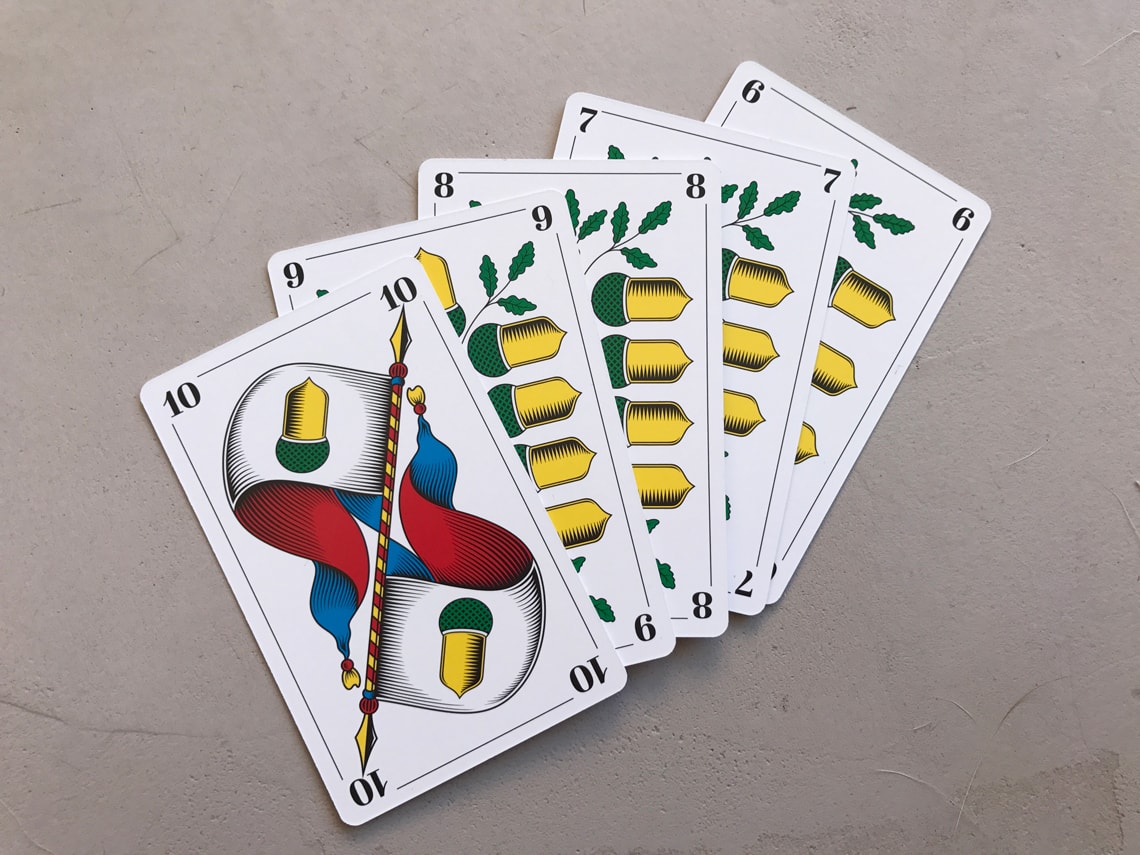
Jass is a card game popular throughout Germany, Switzerland, some areas of Austria, France, and Italy. Jass is a national pastime in Switzerland, so much so that it has become the popular name for any trick-taking card game. In 2014 the Swissmint, the official mint of the Swiss Confederation, issued a small set of “Jass card game” commemorative coins as part of its annual national sport series.
Despite its popularity, for many years Swiss Jass cards have been based on wood engravings, lacking typographic consistency and using blurry illustrations. Creative director Jens Riedweg took the initiative to update the old design. In the end it became more than just a new version of the old cards; it was a complete overhaul that required an attentive eye to aesthetics and details, including technical issues related to paper, such as thickness, softness, pliability, and printing.
For Jens it was very clear that this was not just an update. “The design of Swiss Jass cards has always bothered me: 70-year-old unclear illustrations and inconsistent fonts in various sizes, reader-unfriendly and impure. What could be more appropriate than to take the redesign into my own hands? It wasn’t an artistic realisation. Instead, the outdated cards were to be upgraded to a modern level while retaining their traditional design. The hatching in the new design is vector-based. As a result, the colours are clearly differentiated and the cards generally appear rich in contrast. In addition, the cards can be scaled as desired without losing their sharpness and accuracy.”
For this new and improved version of Swiss Jass cards Jens choose our Abril font family, which shared characteristics with the old lettering, but added consistency and a modern feel. “As a typographic designer, I paid particular attention to the choice of typeface. In the end I decided on the font family Abril — a modern interpretation of a classicist Antiqua. The majuscules and minuscules as well as the serifs are straighter, the transitions more angular; the knit strength contrast between the stem and the crossbar is very strong. The font developers had the same high standards as I did when designing the cards — a love for detail which runs through the whole design.”
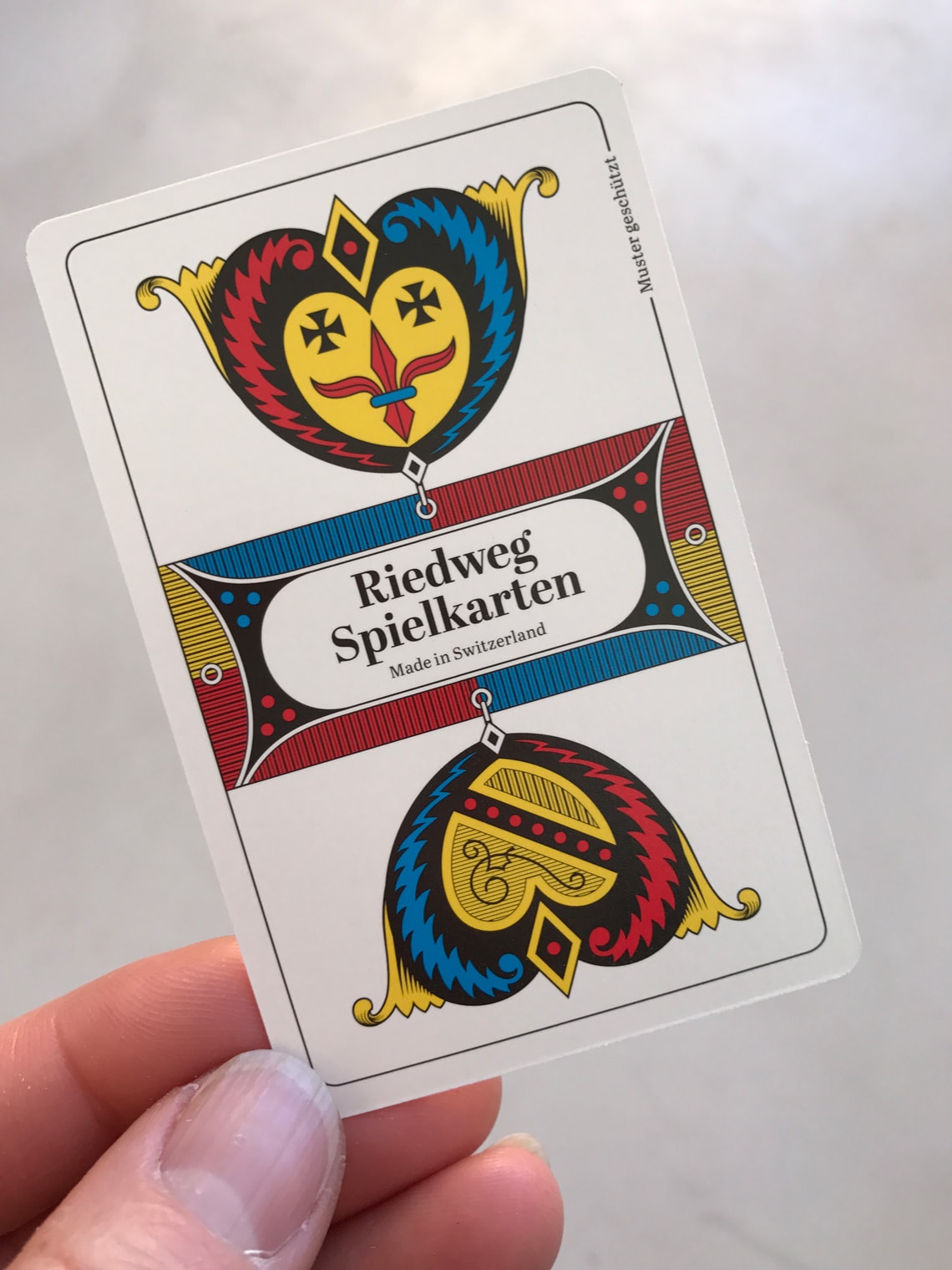
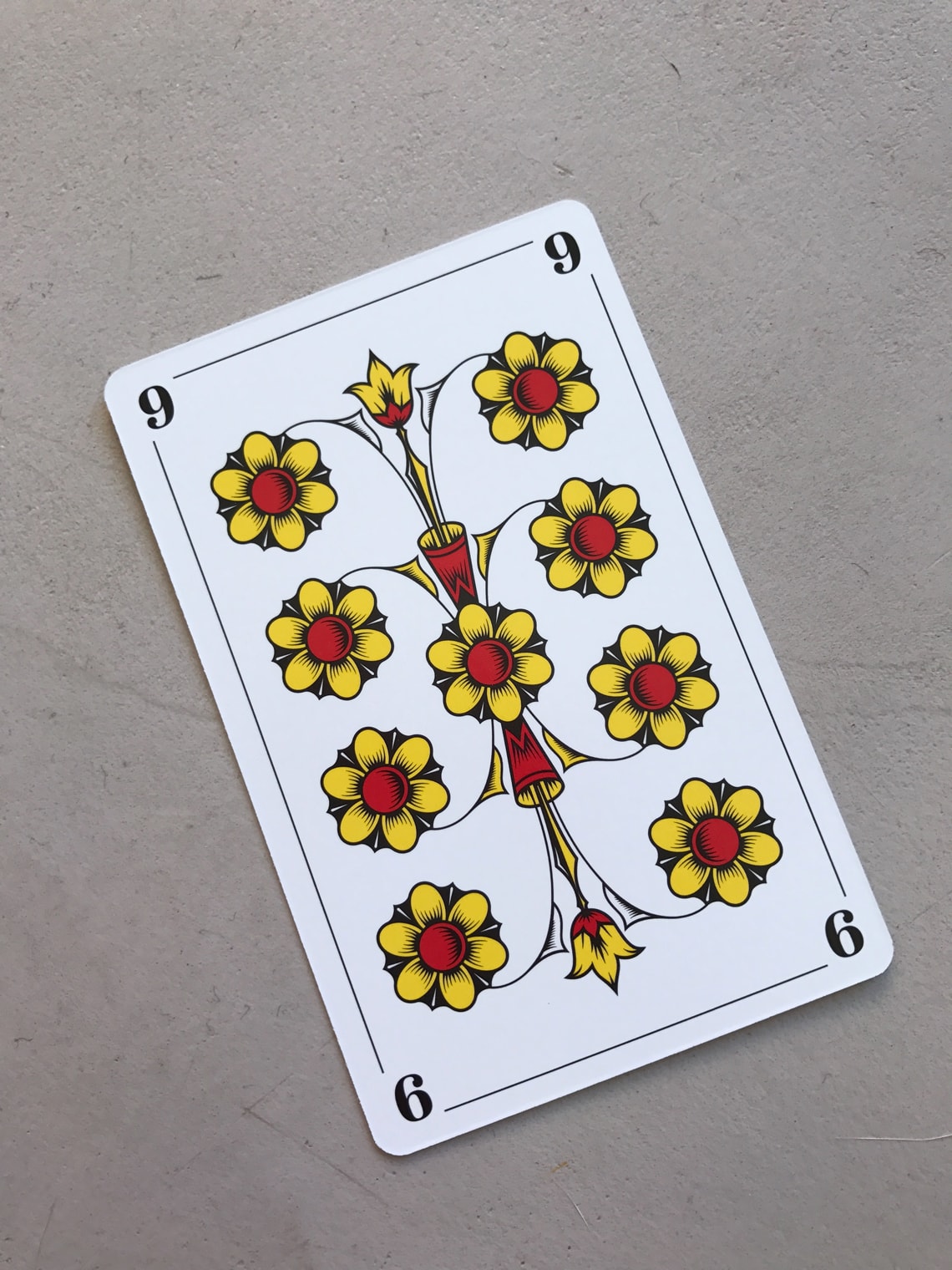
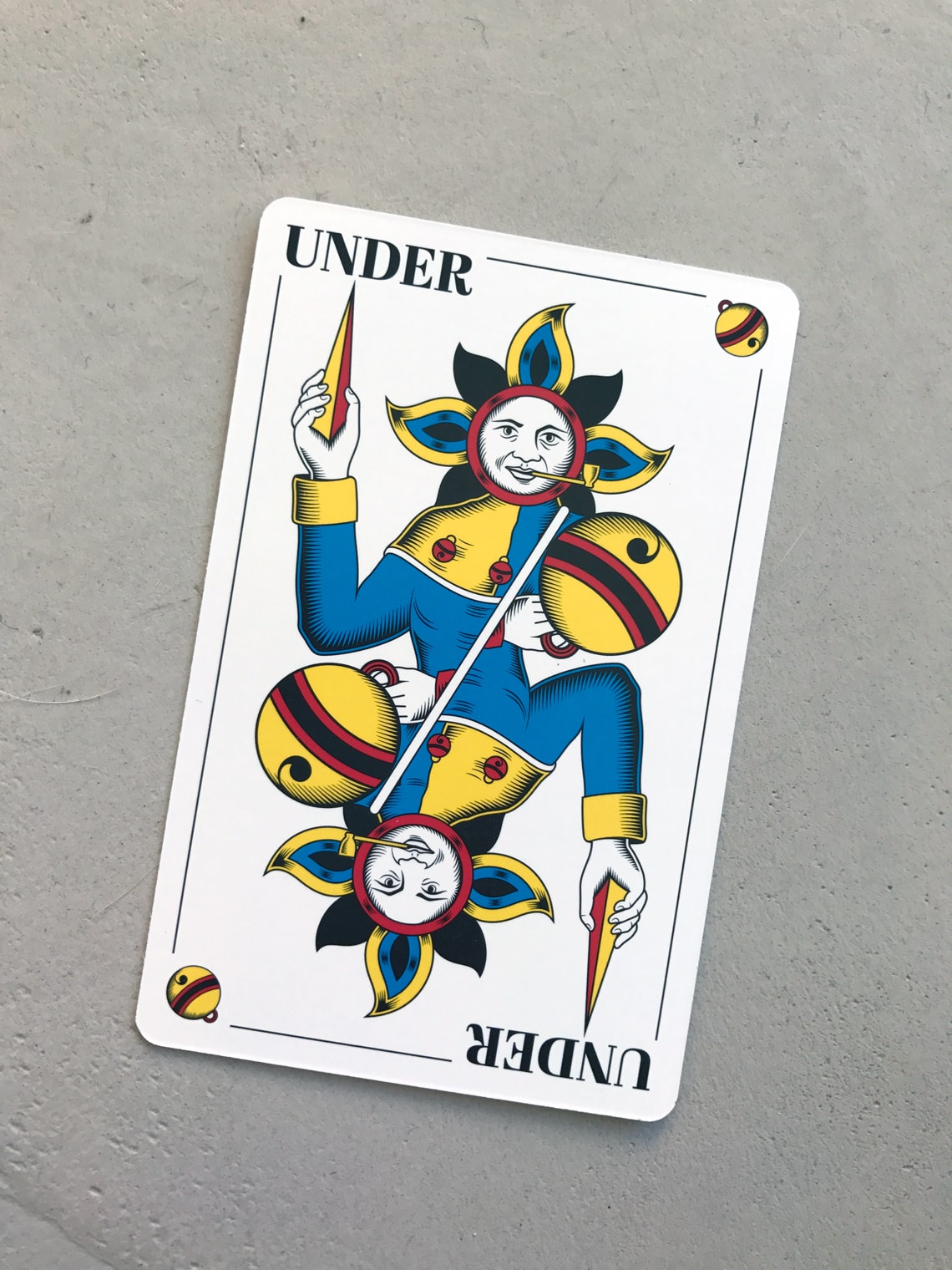
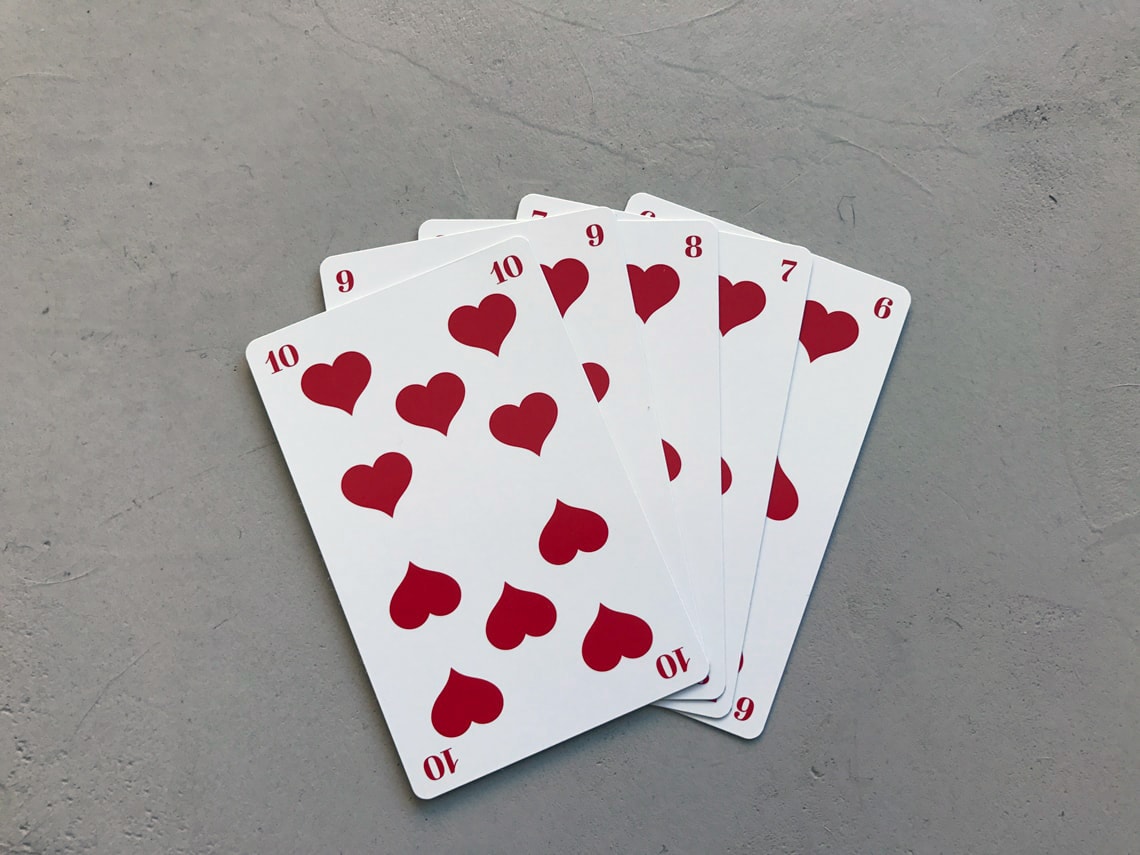
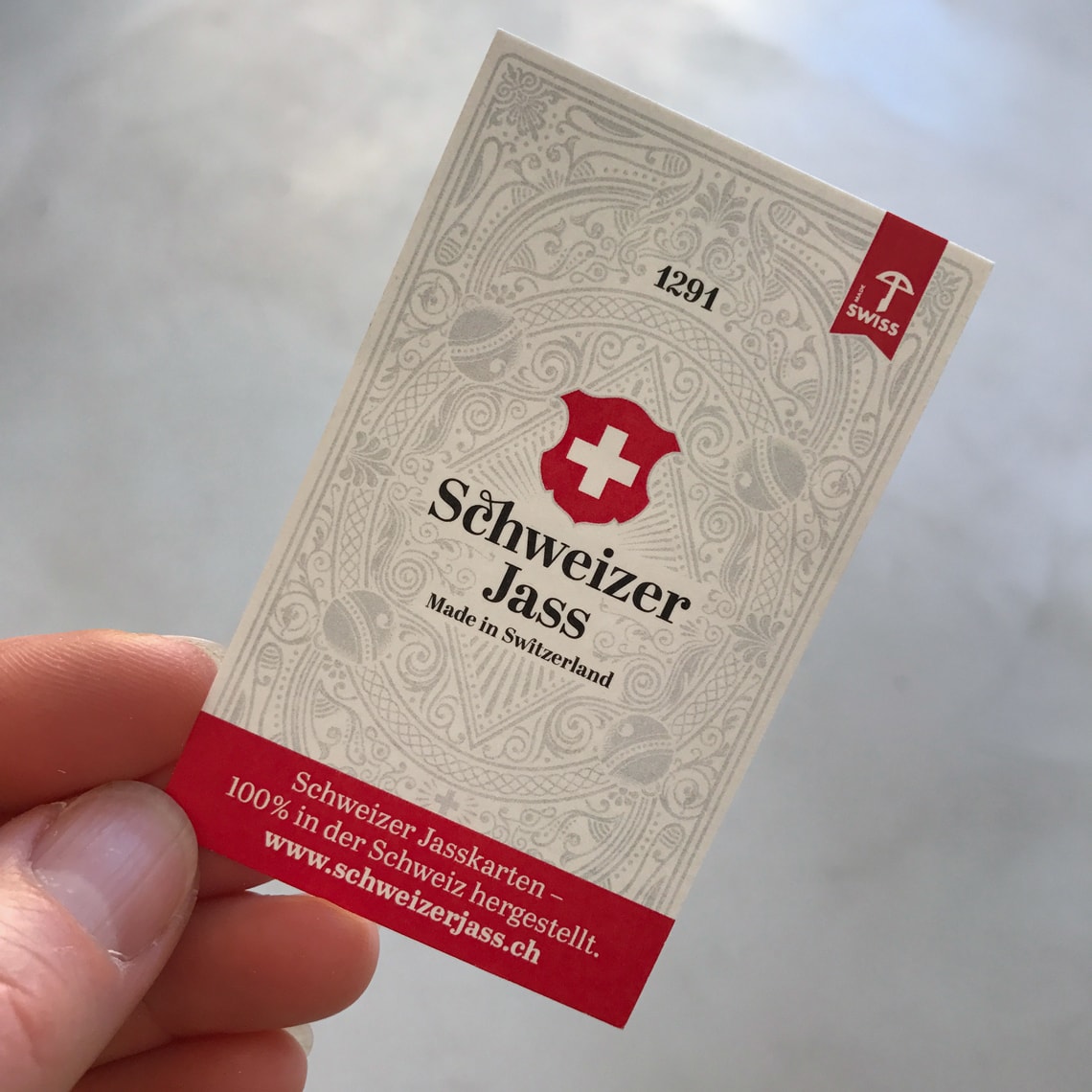
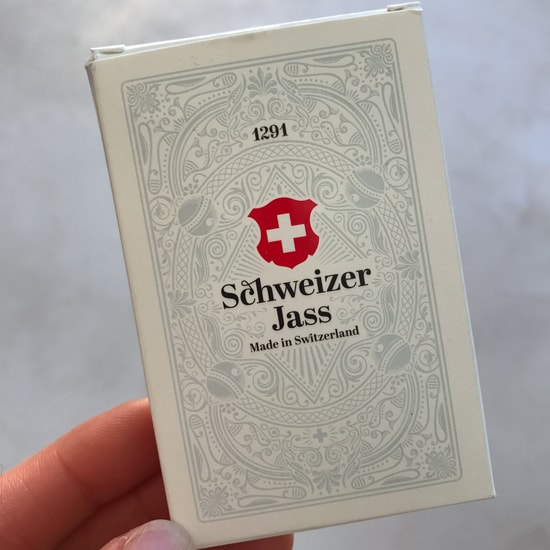
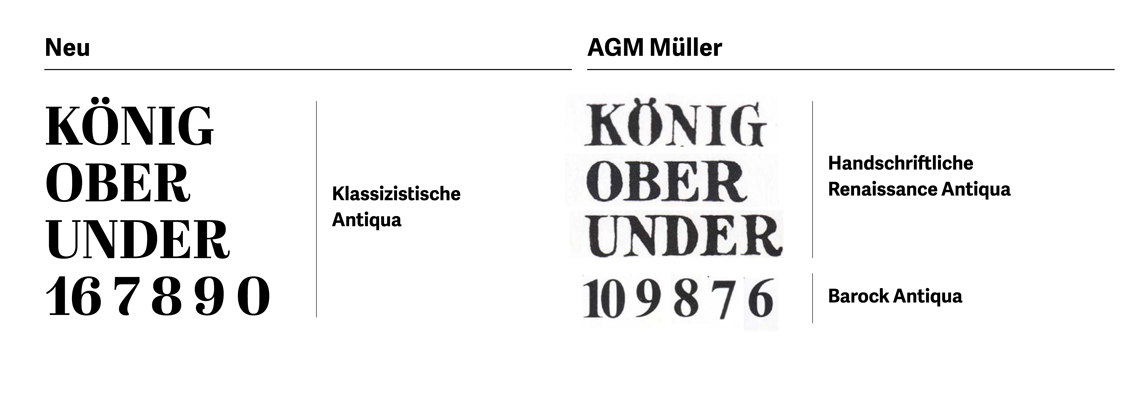
The new typographic system on the left, using Abril, and the previous lettering on the right. Image supplied by Jens Riedweg.
All the illustrations were redrawn and vectorised, improving the details and colours. Image supplied by Jens Riedweg.